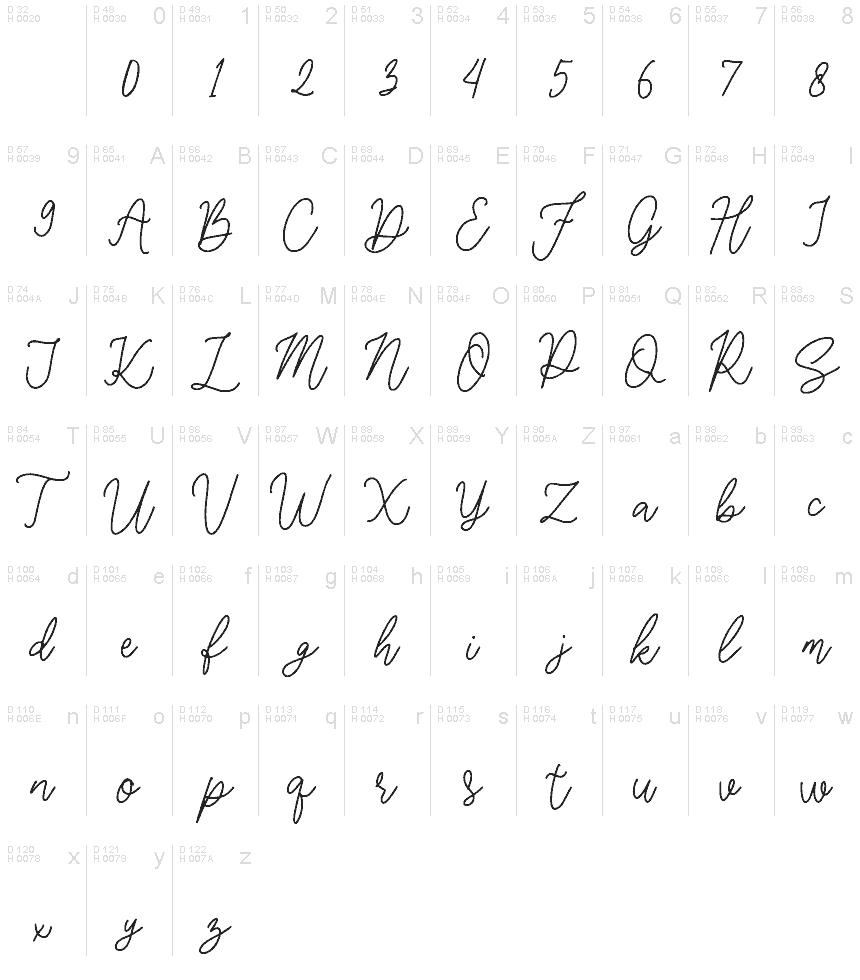
Gilkey Regular
Gilkey font by Craft Supply Co. is a light, handwritten typeface with a casual sophistication and modern elegance. Its fluid appearance is characterized by exceptional legibility to communicate a charming message at all times. Each of the set’s characters expresses intricate designs that capture originality and style for an all-in-all splendid text that leaves the readers with an impression.
This free handwritten font brings out its expected elegance for branding designs, identity packages, quotes, greeting cards, posters, business cards projects in addition to impeccable ad campaigns that match its aesthetic display. Use it also to create Instagram profiles, websites content as well as several other digital use cases.